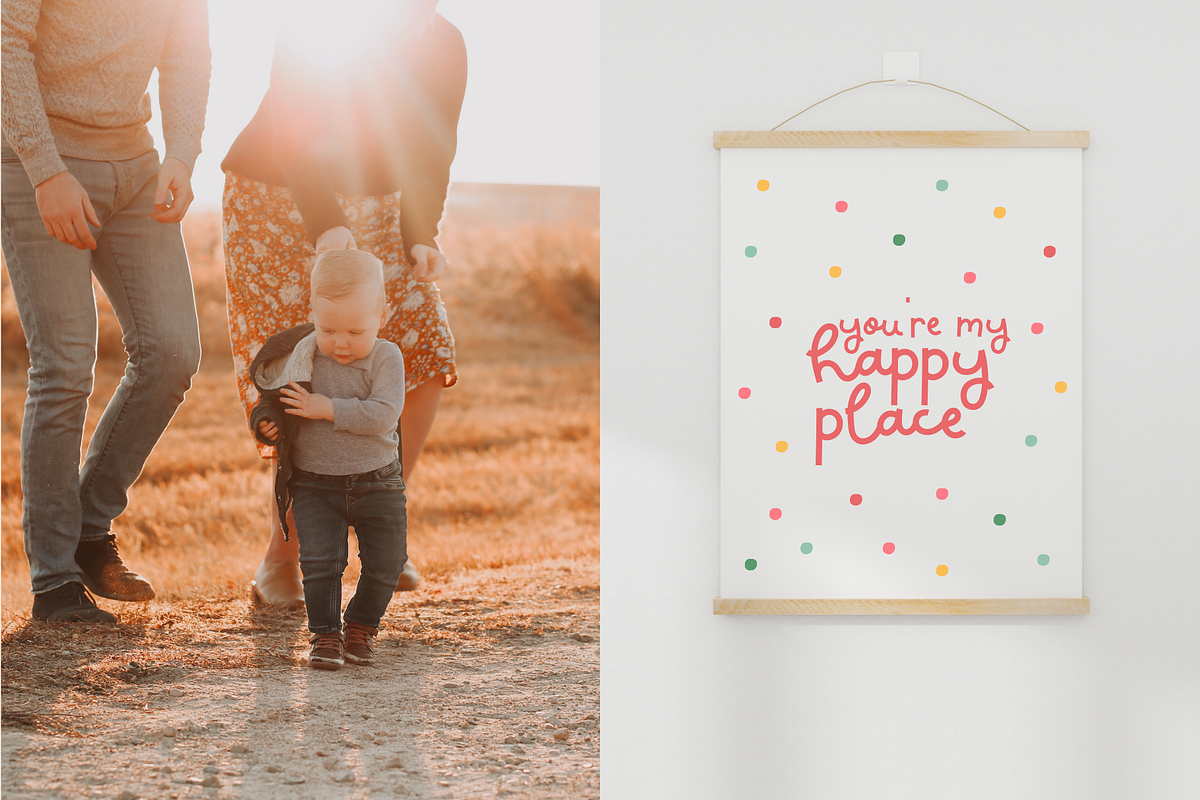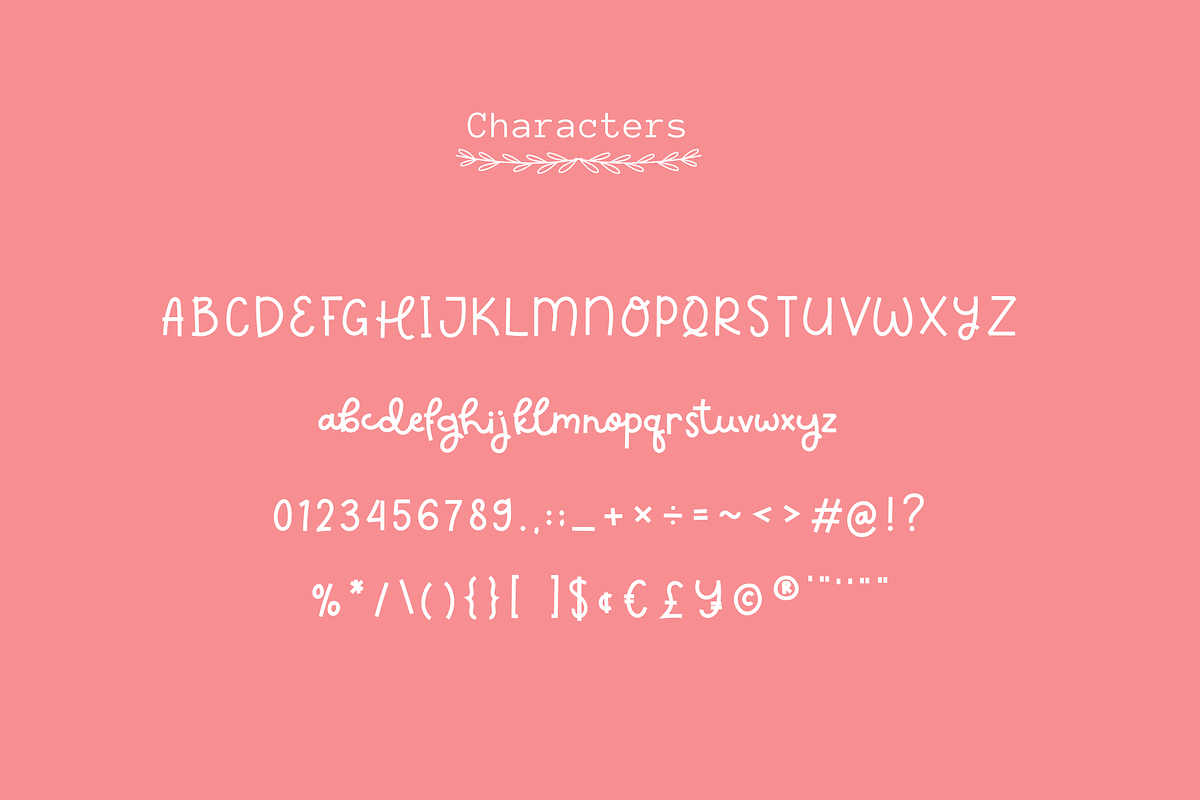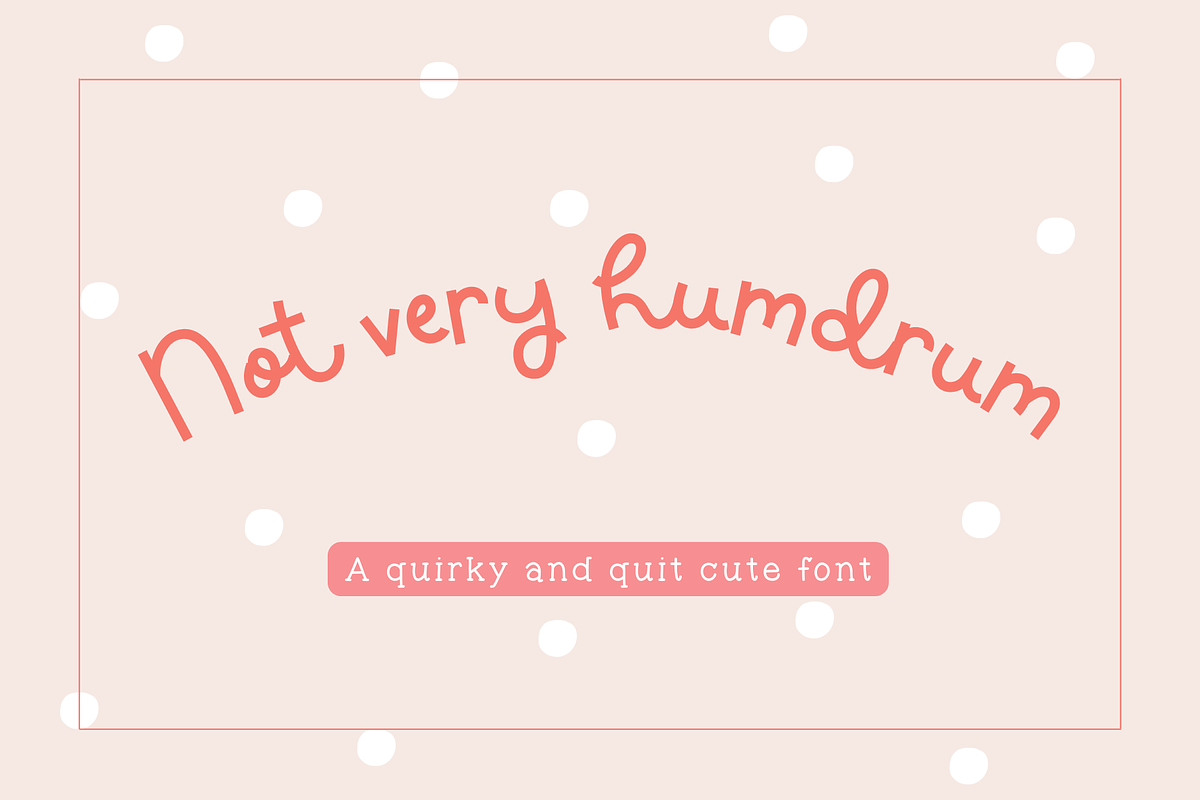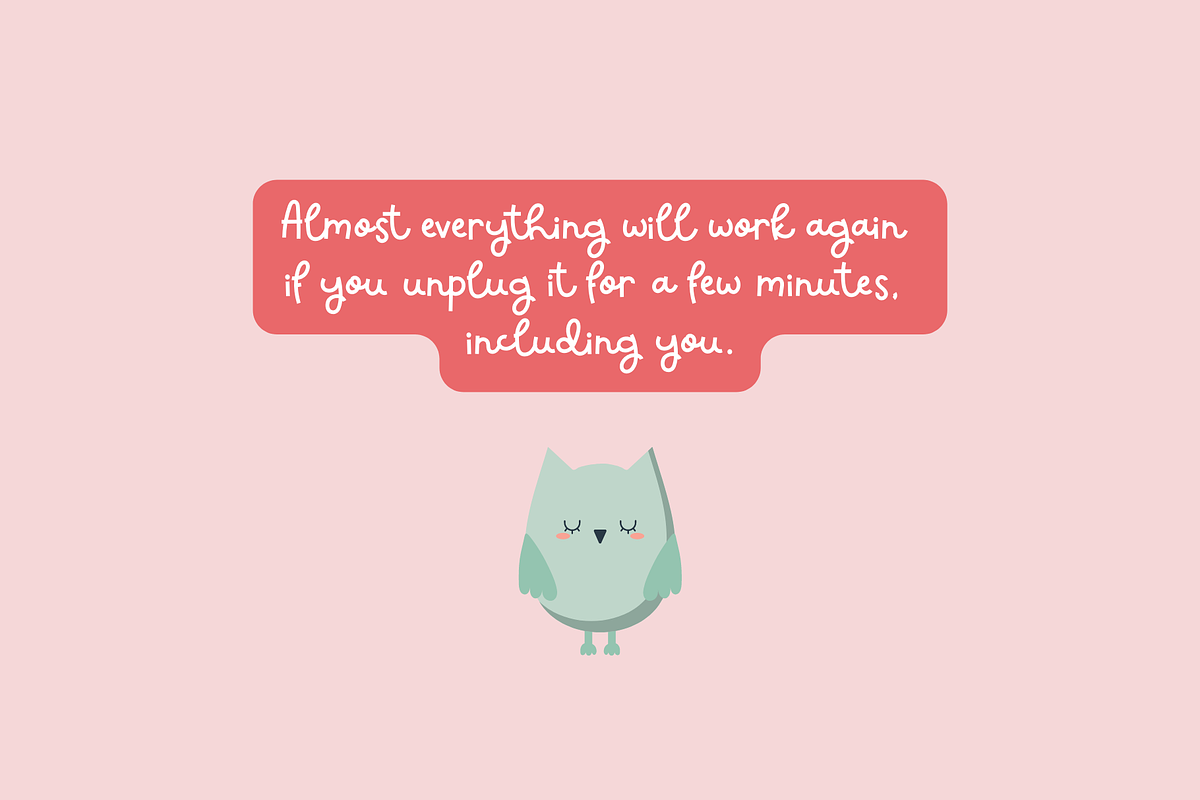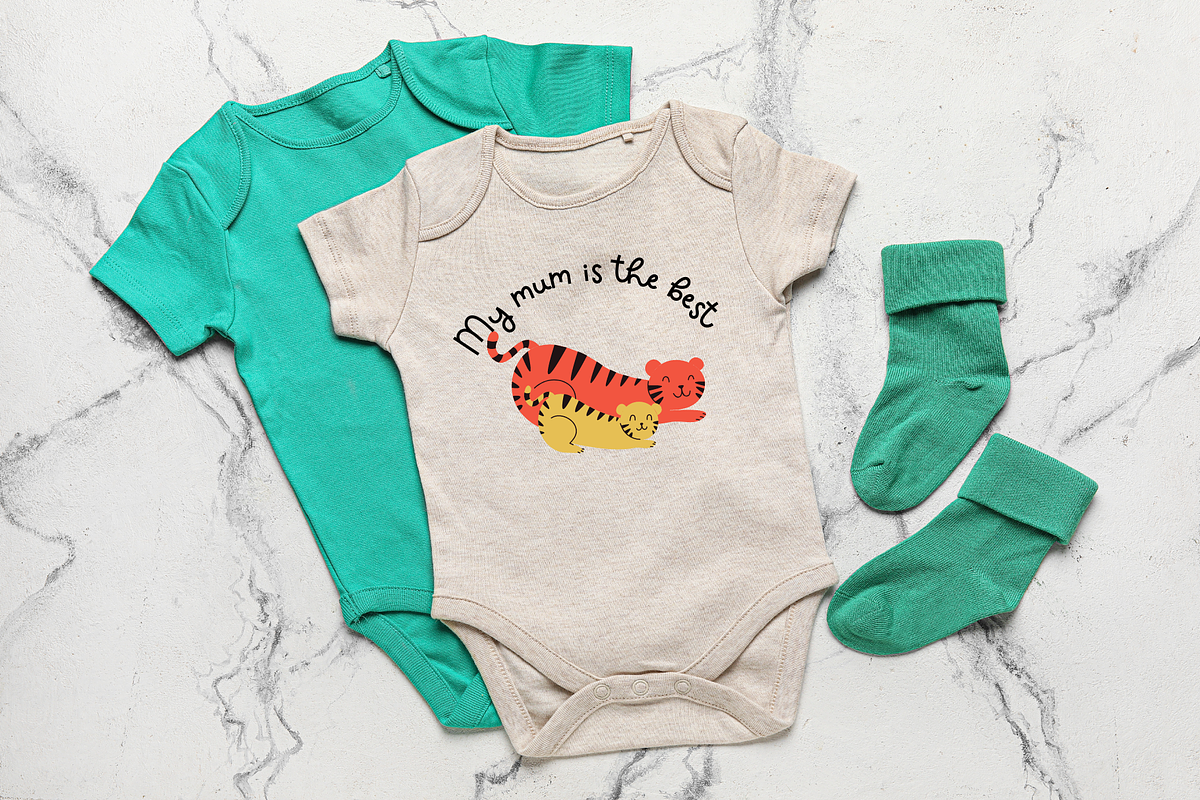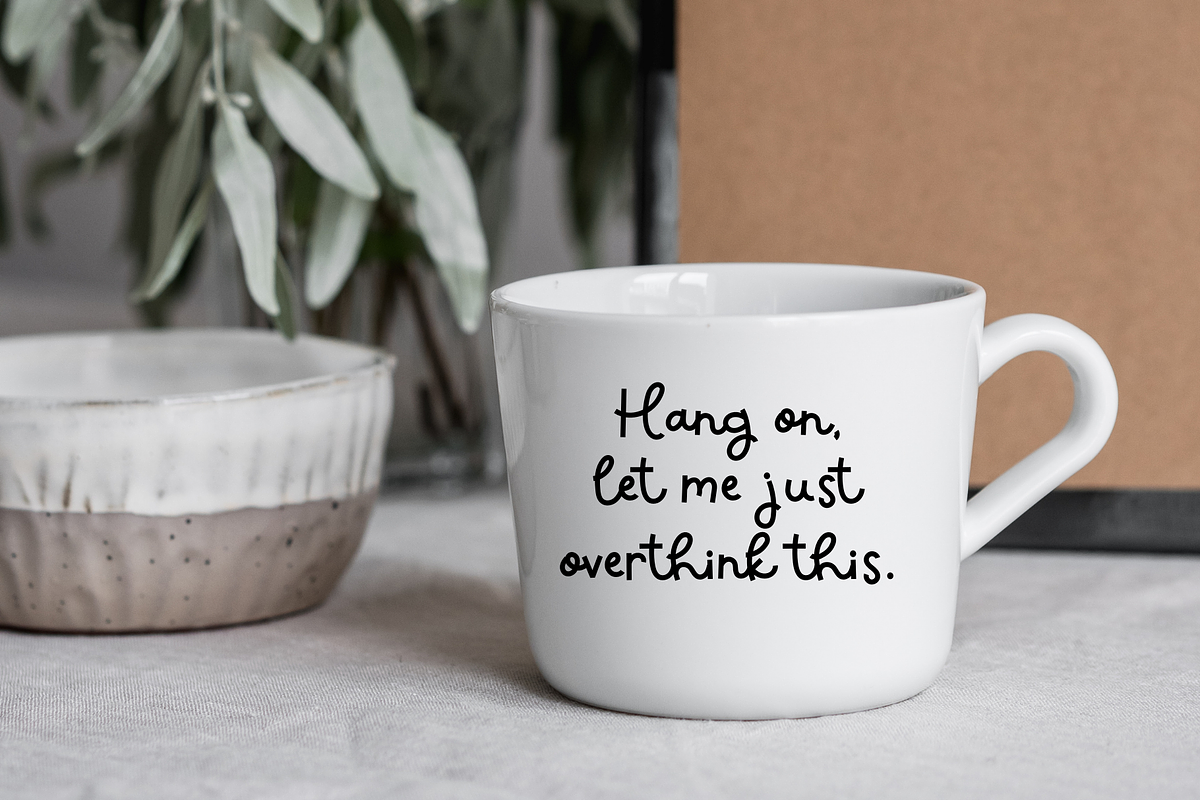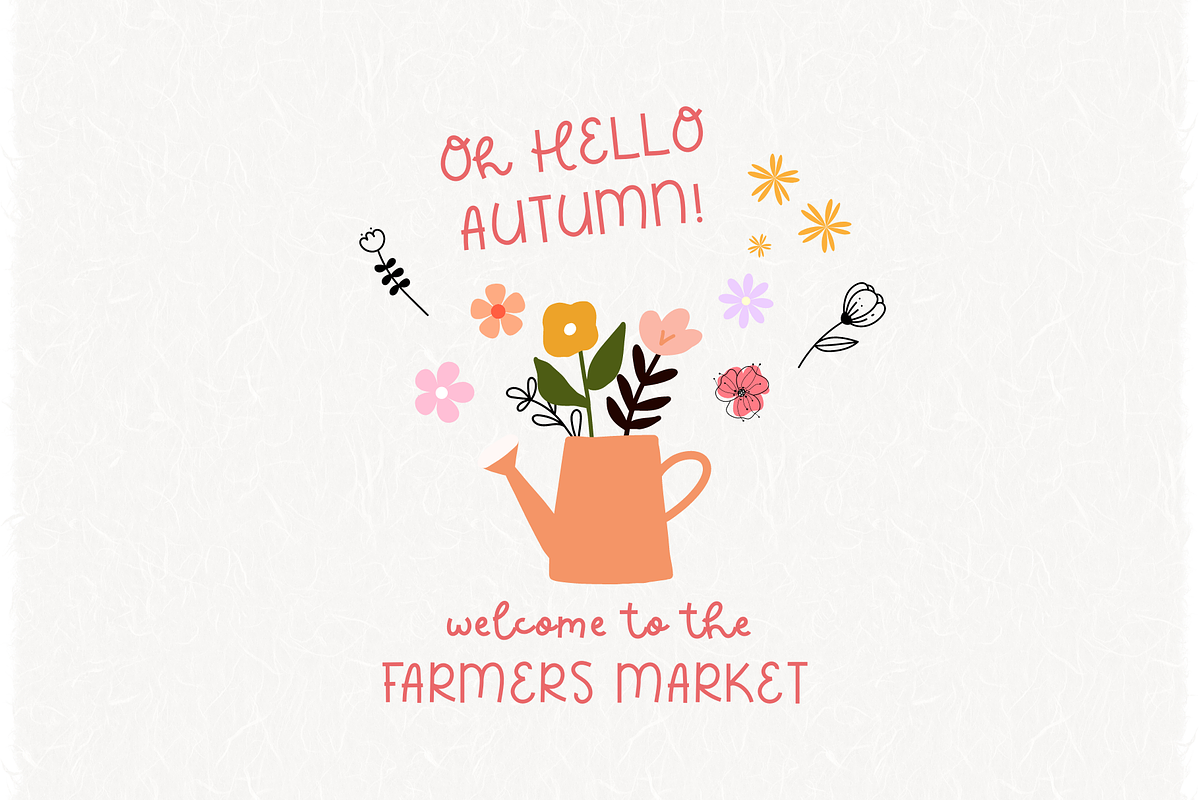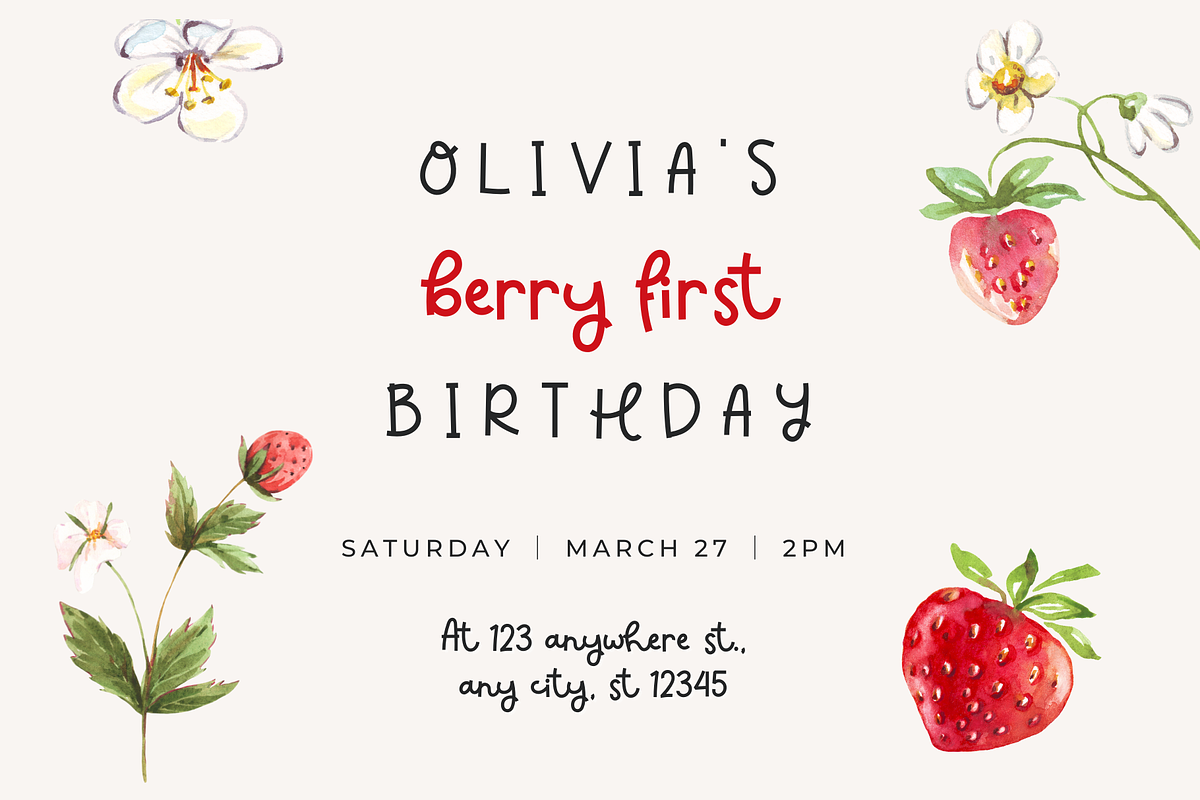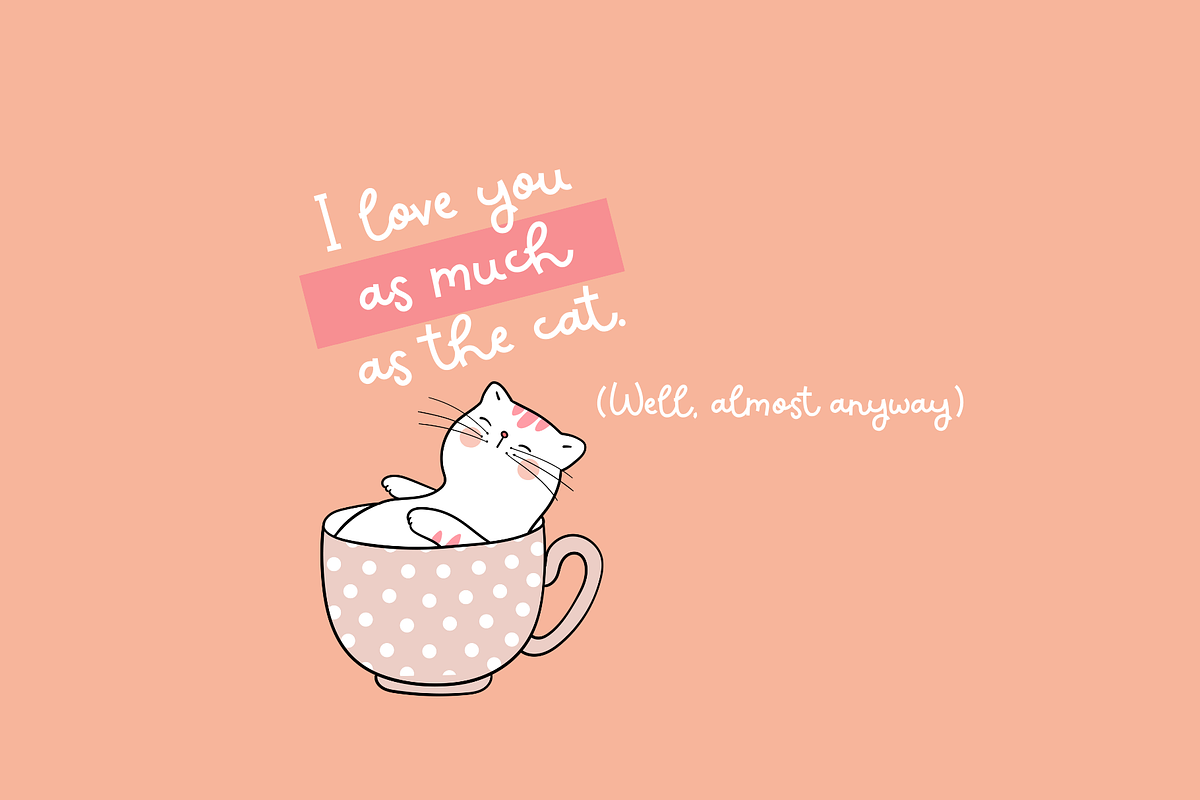
Not Very Humdrum a Quirky & Cute Fon
Use Not Very Humdrum to create super beautiful logos, branding, notebooks, journals, labels, stickers, blogs, quotes, greeting cards, tea towels, apparel, pillows, mugs, toys, posters, baby clothing, picture books and so much more... basically anything that requires a cute and handwritten look! 😍